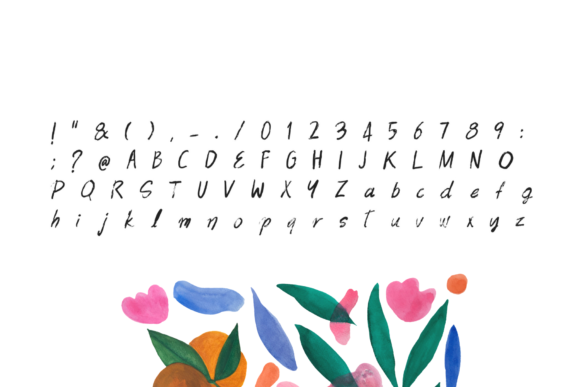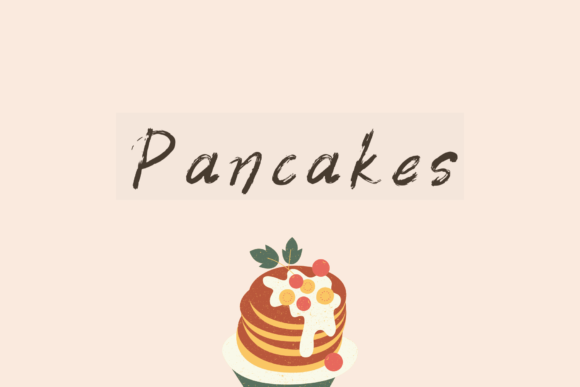
Introducing February Script Font: A Simple yet Powerful Handwritten Font
Are you a designer, crafter, or DIY enthusiast looking for a unique and creative way to express yourself? Look no further than the February Script Font! This beautiful, simple, and brushed handwritten font is perfect for adding a personal touch to your projects. In this article, we’ll explore the features and benefits of February Script Font, and show you how it can bring your most creative ideas to life.
What is February Script Font?
February Script Font is a carefully crafted, handwritten font that exudes a sense of simplicity and elegance. Its brushed strokes and fluid connections make it perfect for creating beautiful, eye-catching text that stands out from the crowd. Whether you’re working on a graphic design project, crafting a handmade card, or creating a unique piece of art, February Script Font is the perfect choice.
Key Features of February Script Font
- Simple and Easy to Read: February Script Font features clean and simple lettering that is easy to read, making it perfect for use in a variety of projects.
- Brushed Handwritten Style: The font’s brushed strokes give it a unique, handmade feel that’s perfect for adding a personal touch to your work.
- Highly Versatile: February Script Font can be used in a wide range of projects, from graphic design and crafting to scrapbooking and journaling.
Benefits of Using February Script Font
So why choose February Script Font for your next project? Here are just a few benefits of using this amazing font:
- Adds a Personal Touch: February Script Font’s handwritten style adds a personal touch to your work, making it perfect for creating unique and special projects.
- Enhances Creativity: The font’s simple yet elegant design makes it easy to use and experiment with, helping to enhance your creativity and inspire new ideas.
- Perfect for DIY Projects: February Script Font is a great choice for DIY enthusiasts and crafters, adding a professional touch to handmade projects.
How to Use February Script Font
Using February Script Font is easy! Here are a few tips to get you started:
- Pair it with Other Fonts: Combine February Script Font with other fonts to create a unique and eye-catching design.
- Experiment with Colors: Try out different colors and textures to add depth and interest to your project.
- Use it for Headings and Titles: February Script Font is perfect for use in headings and titles, adding a touch of elegance and sophistication to your work.
In conclusion, February Script Font is a simple yet powerful handwritten font that’s perfect for designers, crafters, and DIY enthusiasts. Its brushed strokes and fluid connections make it a beautiful and eye-catching choice for a wide range of projects. Whether you’re looking to add a personal touch to your work or enhance your creativity, February Script Font is the perfect choice. So why wait? Download February Script Font today and start bringing your most creative ideas to life!